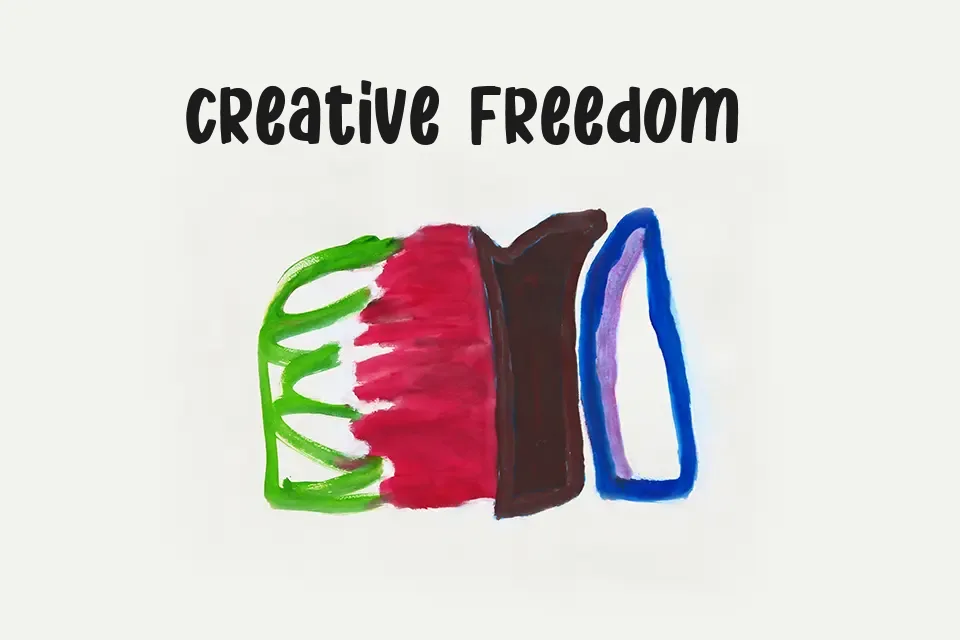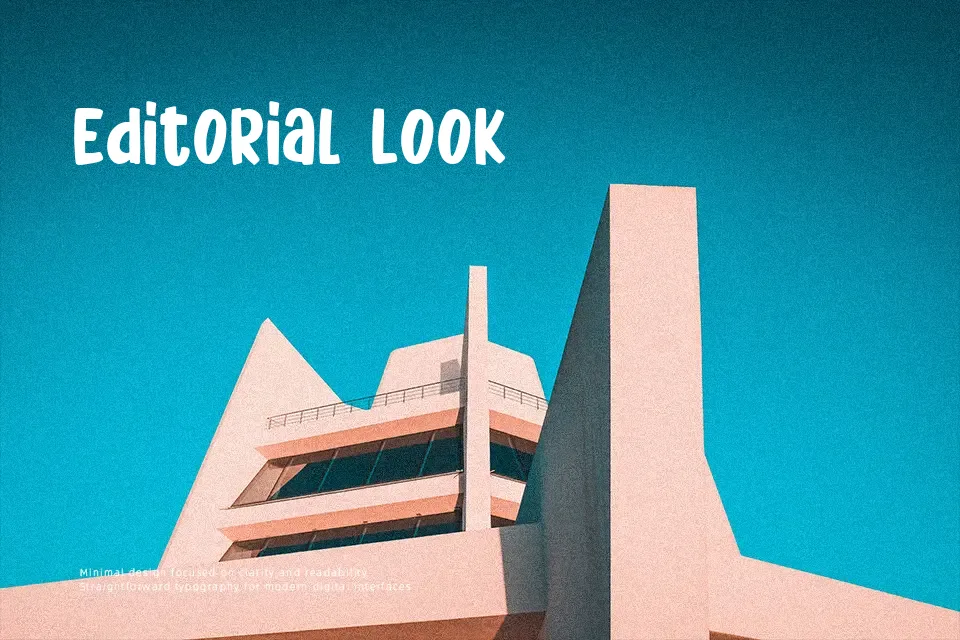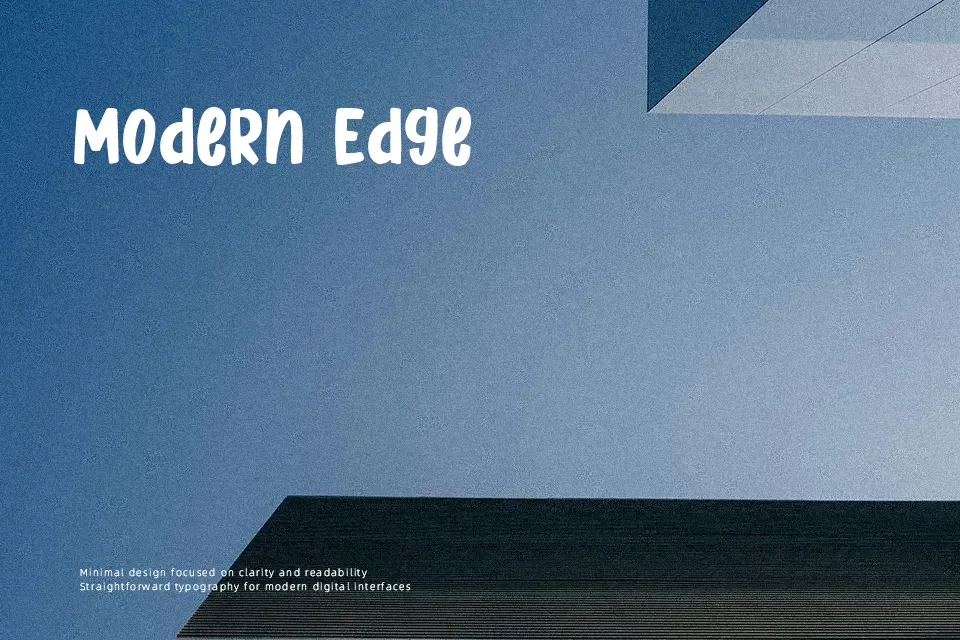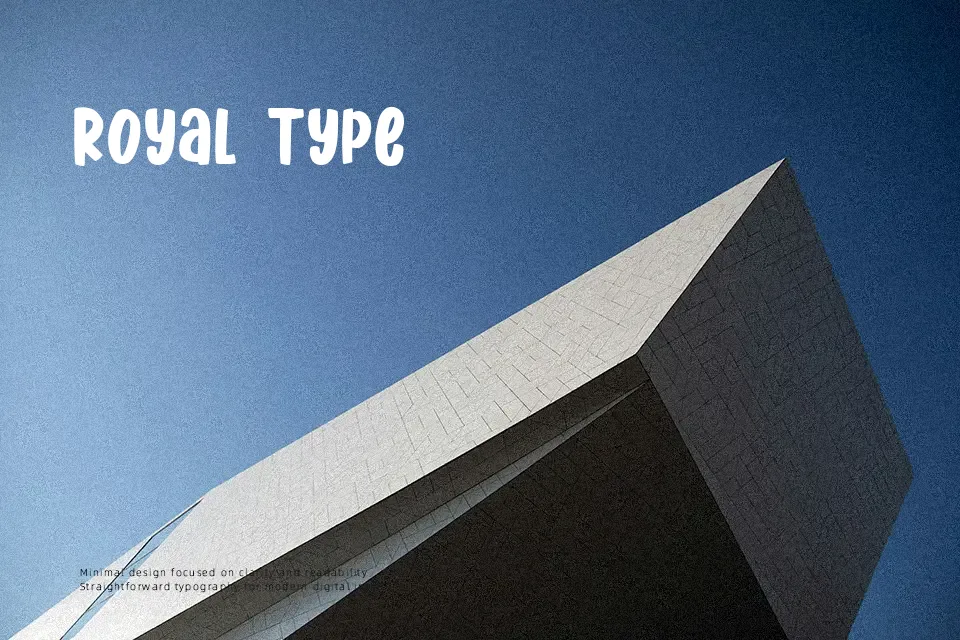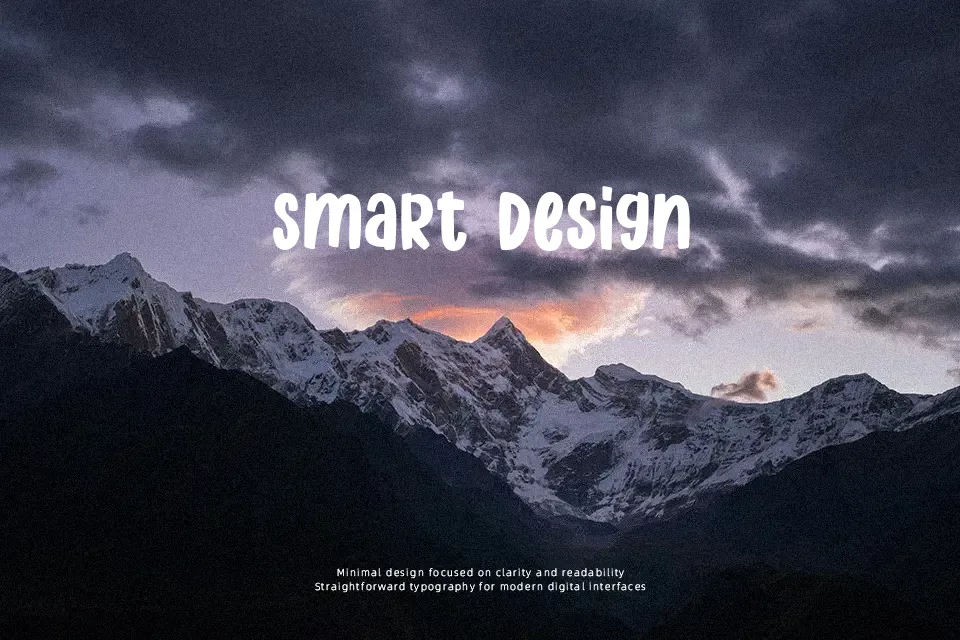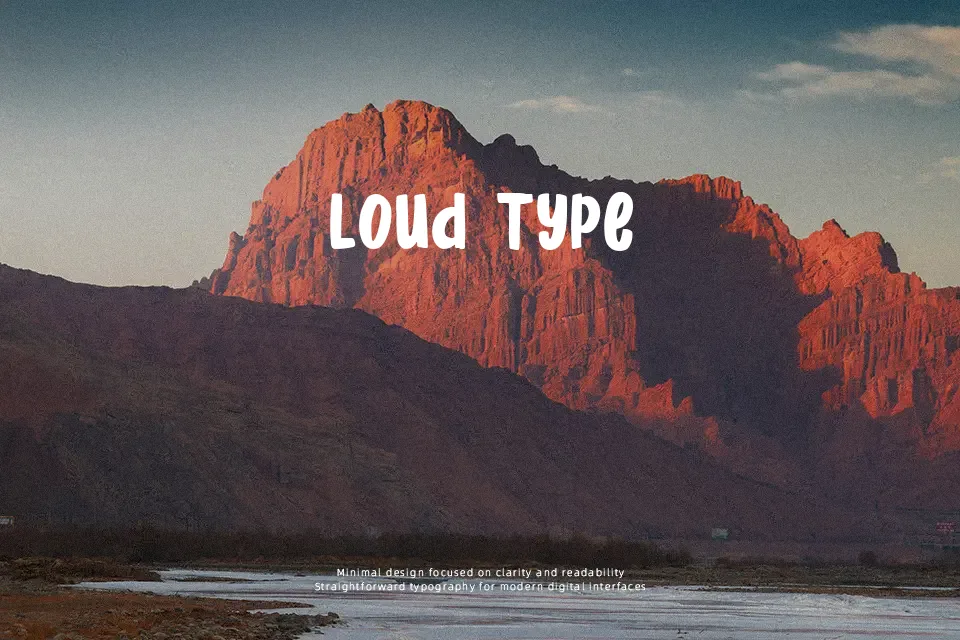
Brownies Font
Brownies Font leans into a soft comic look, with rounded terminals, loose curves, and slightly chunky strokes that read as warm and informal rather than polished. Letterforms feel hand-drawn, with generous counters and relaxed spacing that keep short words readable at medium sizes. This gives it a snack-pack, café-chalkboard energy that works well on cute product labels, kids’ quote graphics, or playful event posters. I would reach for it when you need a fun accent line or a logo wordmark for sweet treats, but not for dense paragraphs, formal branding, or serious editorial layouts, where its casual personality can feel out of place.
kids snack packaging headers
playful café or bakery menus
fun social media quote graphics
casual event or party posters
formal corporate branding systems
long body text or reading-heavy layouts
serious editorial or news content
professional tech or finance presentations
Perfect for branding, logo, and packaging, with a cute and comic style.